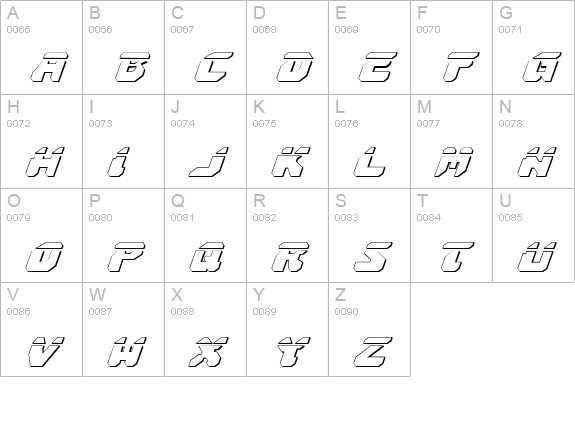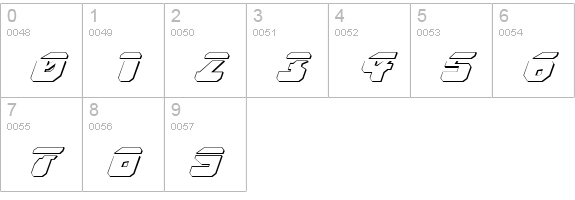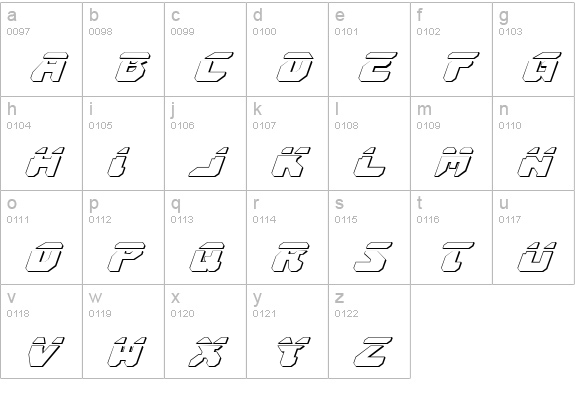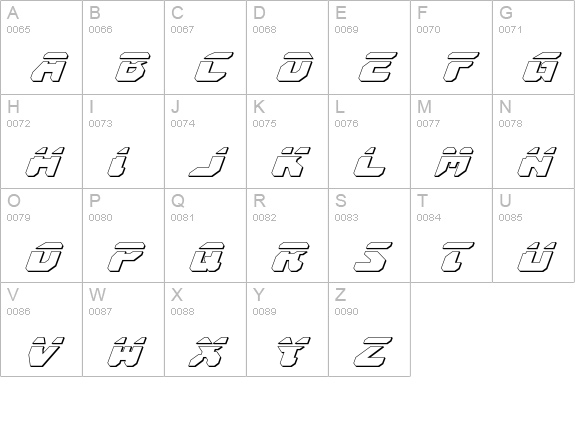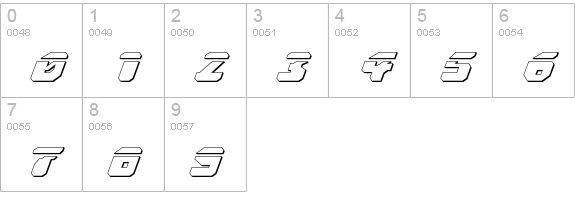
Astropolis Laser 3D Italic is a distinctive, italic variant in the Astropolis typeface family \xE2\x80\x94 well suited to design and typography projects.
Astropolis Laser 3D Italic font is a stunning display typeface that brings a futuristic and dynamic feel to any project. With its sharp lines and 3D effect, this font is perfect for creating eye-catching headlines, posters, and logos. The italic style adds a touch of elegance and sophistication to your designs. Best of all, Astropolis Laser 3D Italic font is available for free download at FontsMarket.com. Whether you're a designer looking to add a unique flair to your work or a creative individual looking for a fresh font for personal projects, this font is a must-have in your collection. Download it today and take your designs to the next level with Astropolis Laser 3D Italic font.